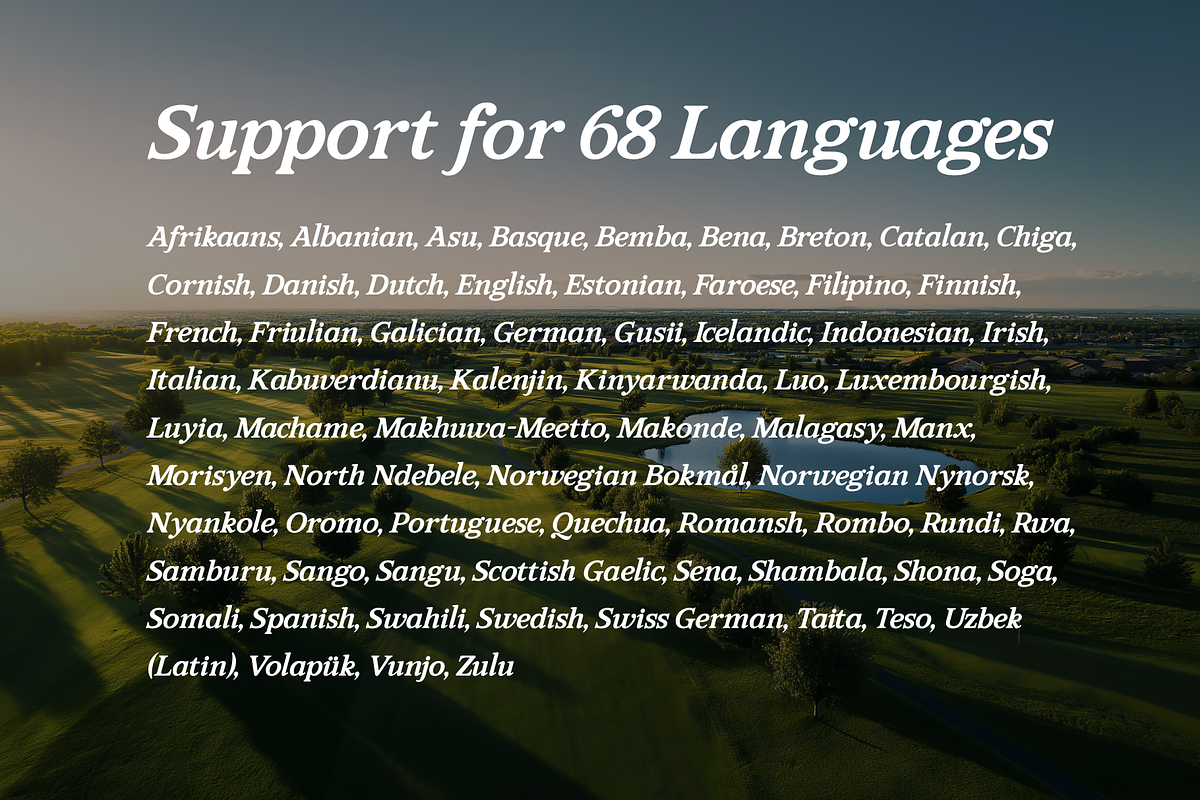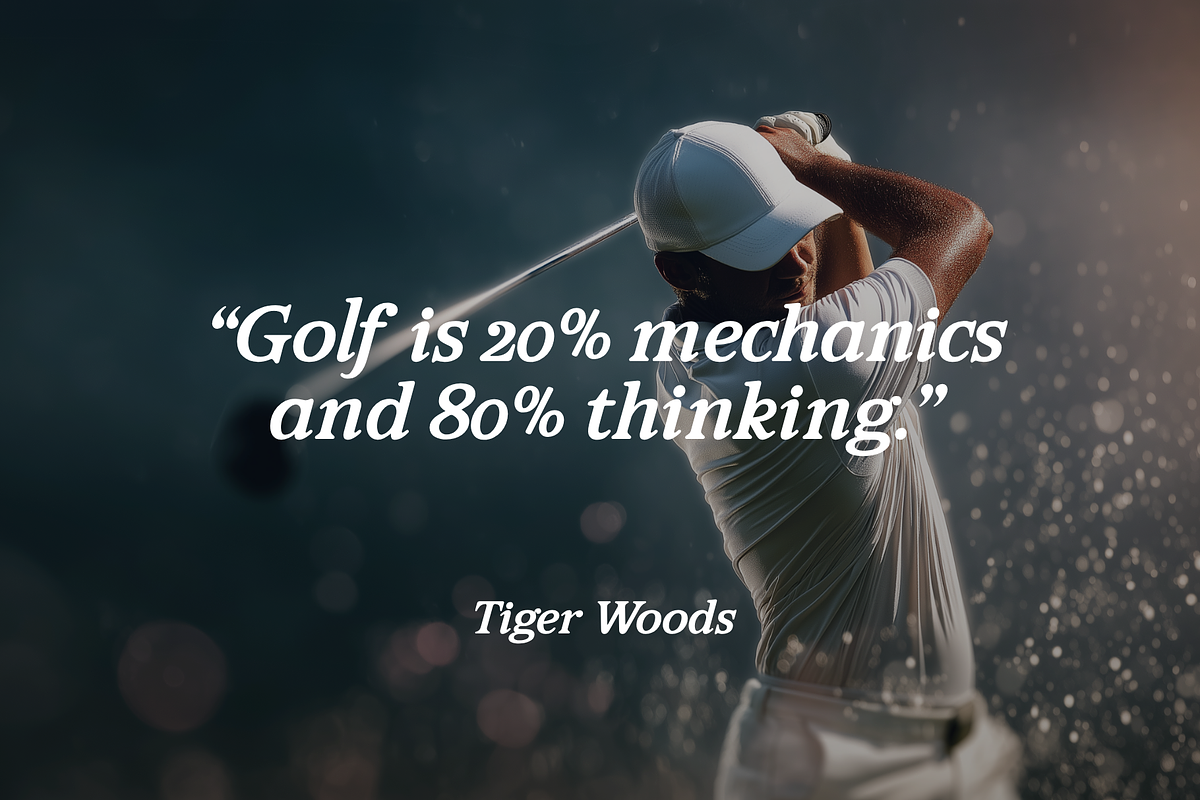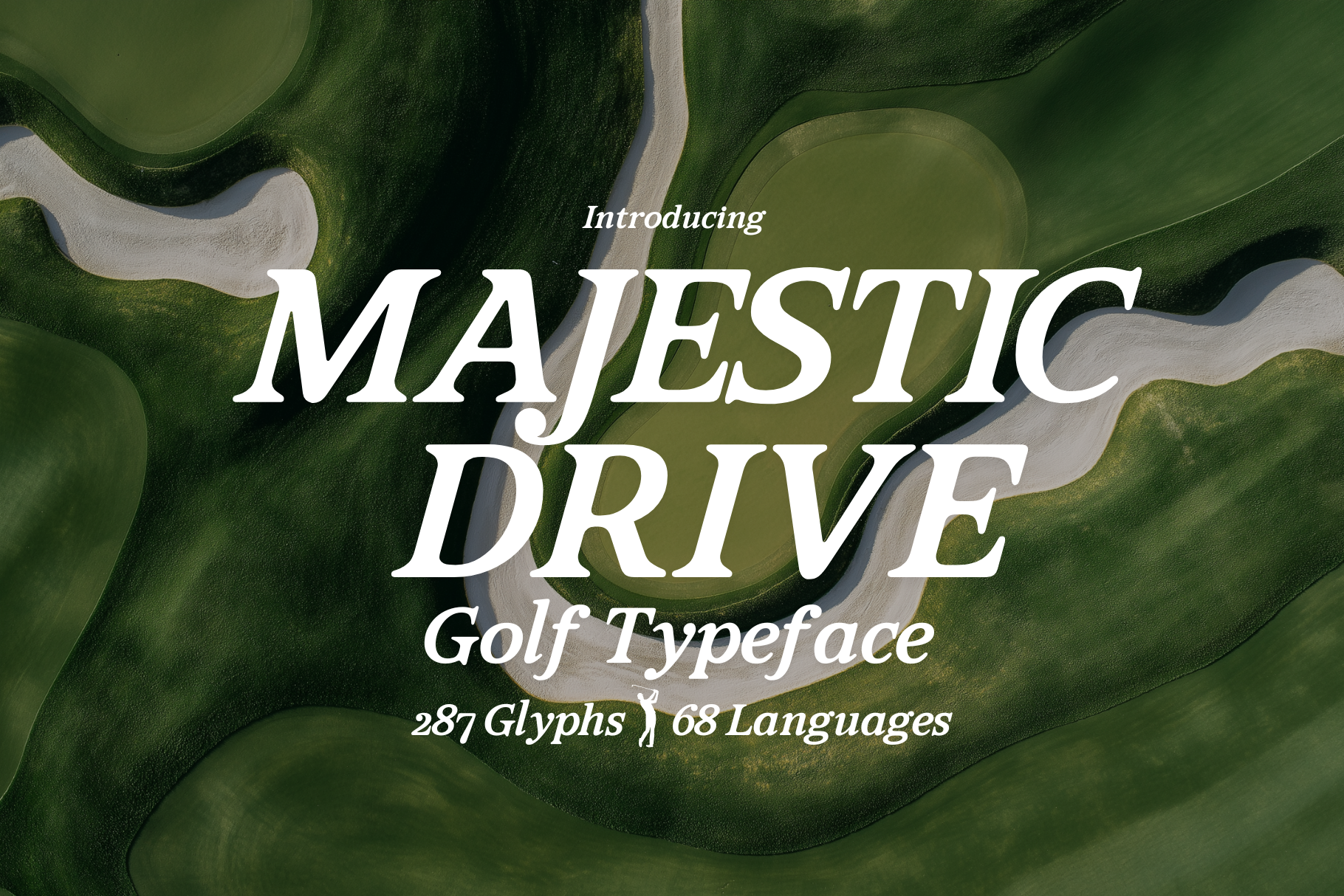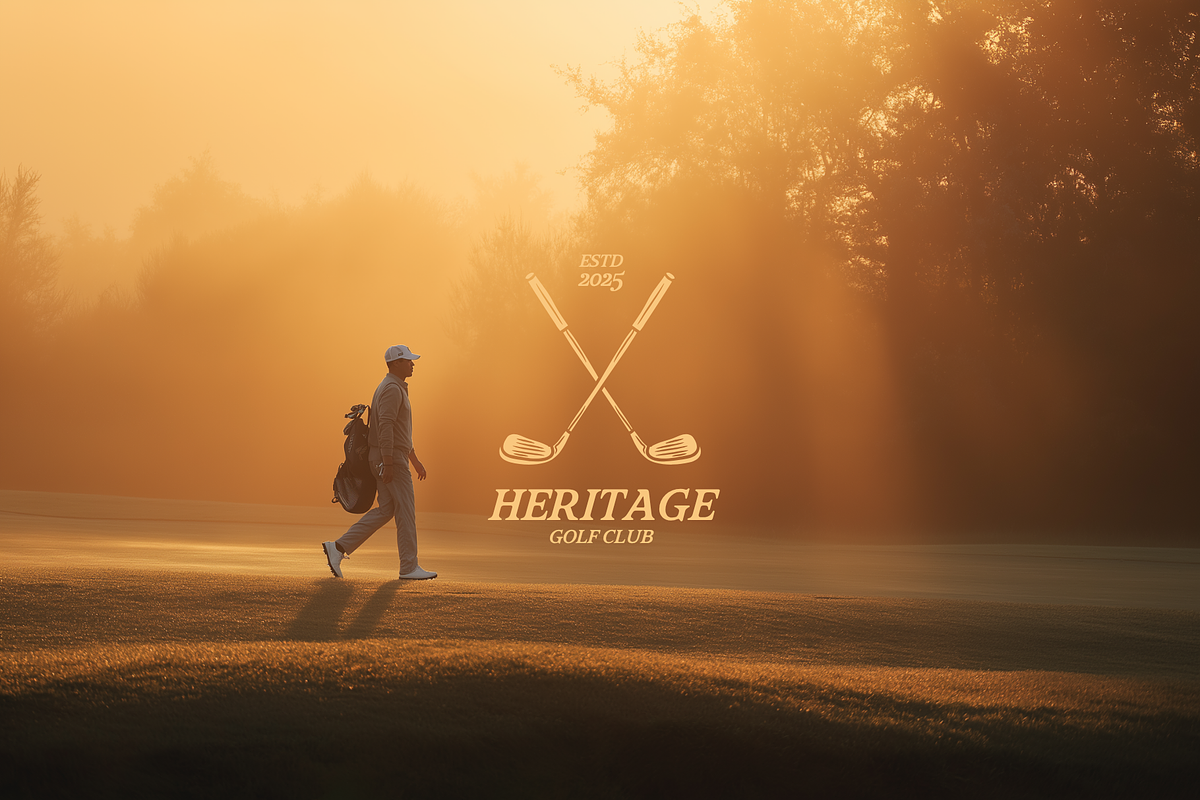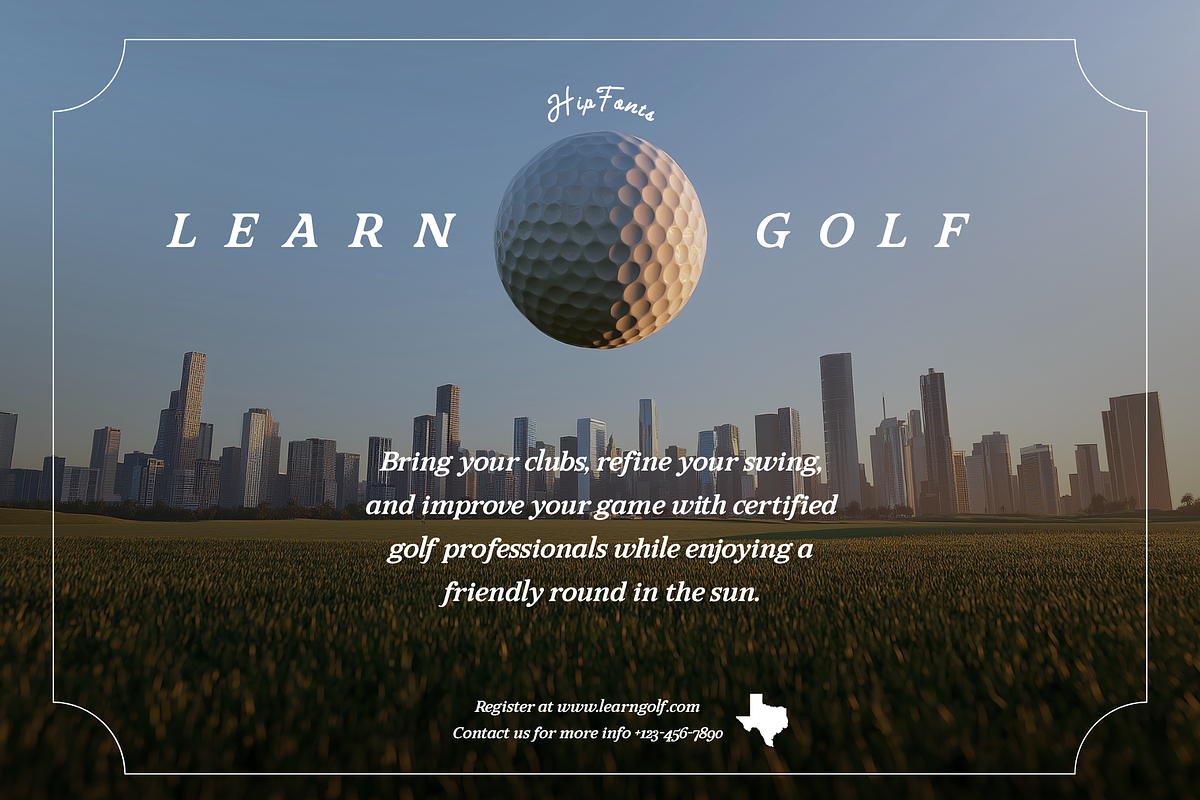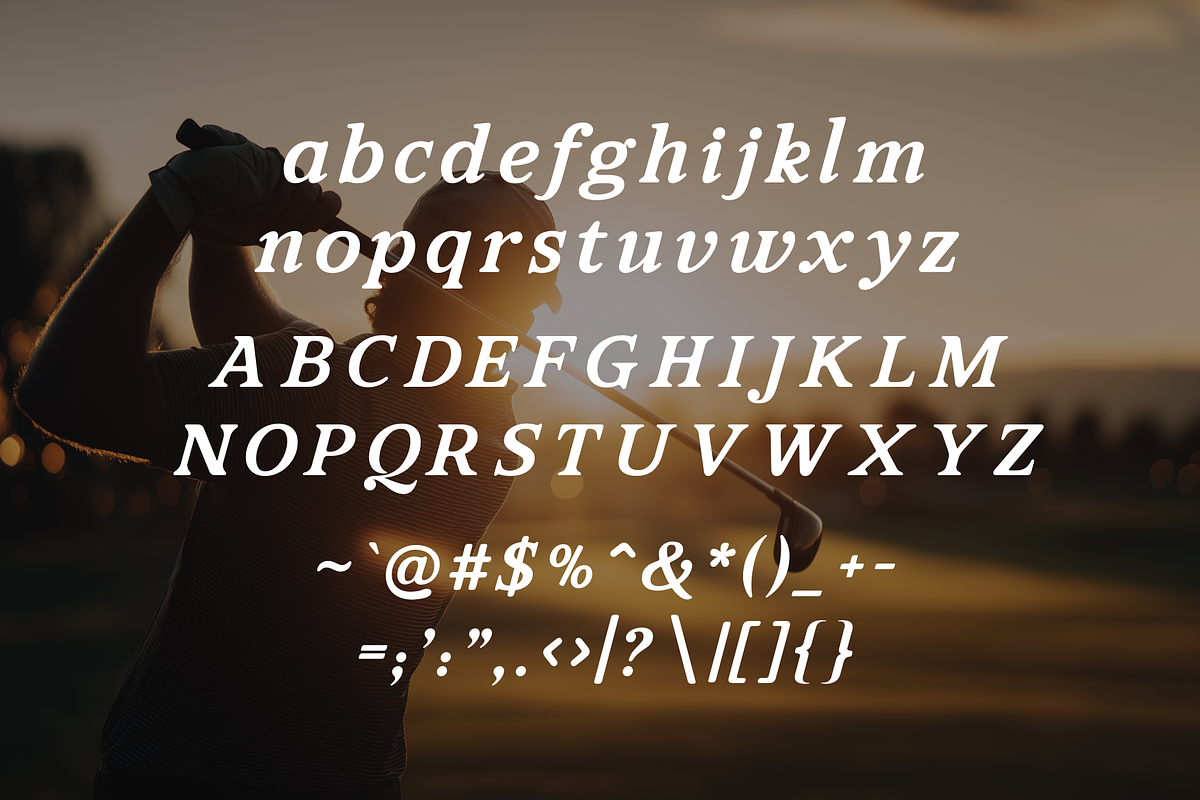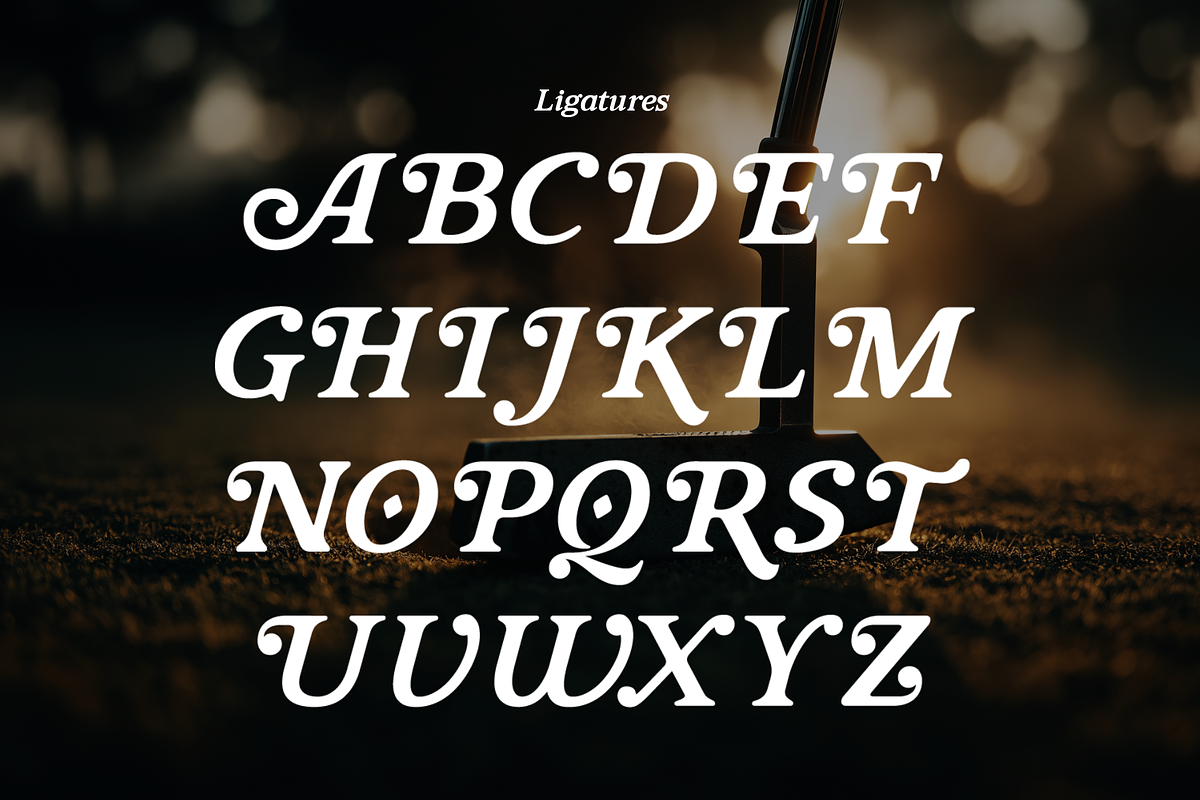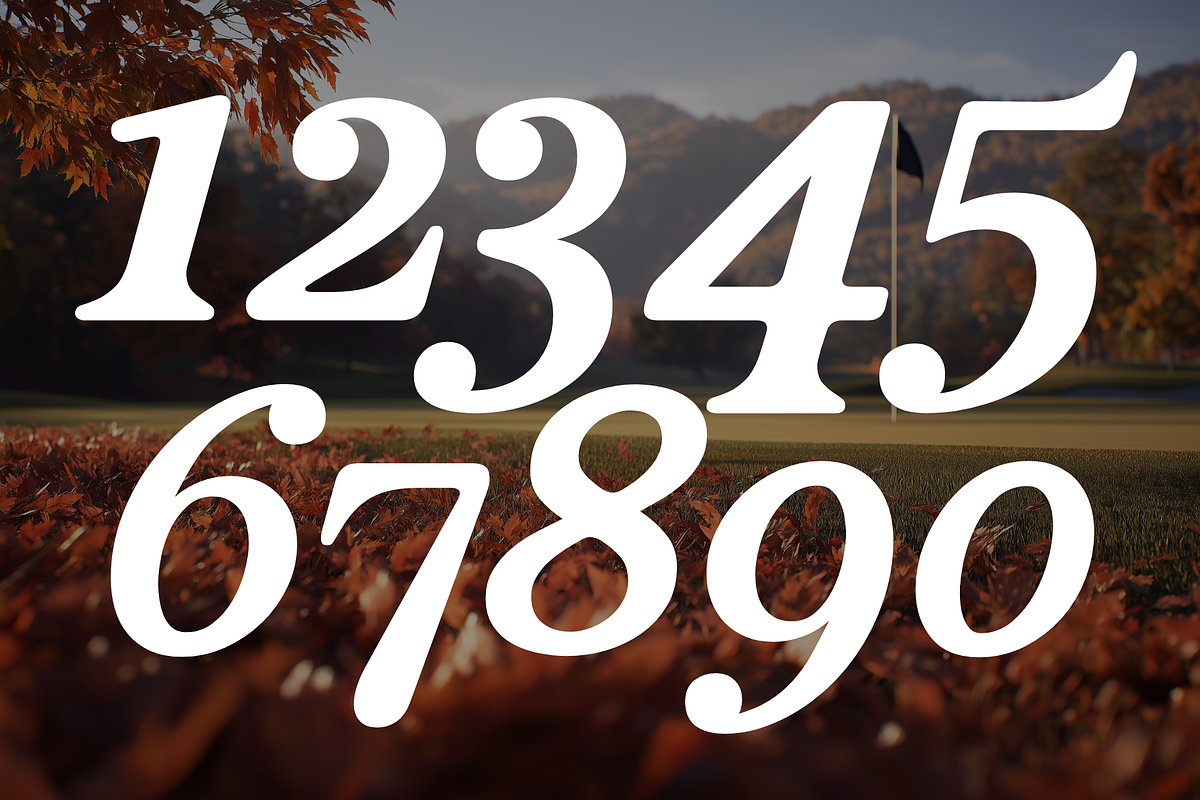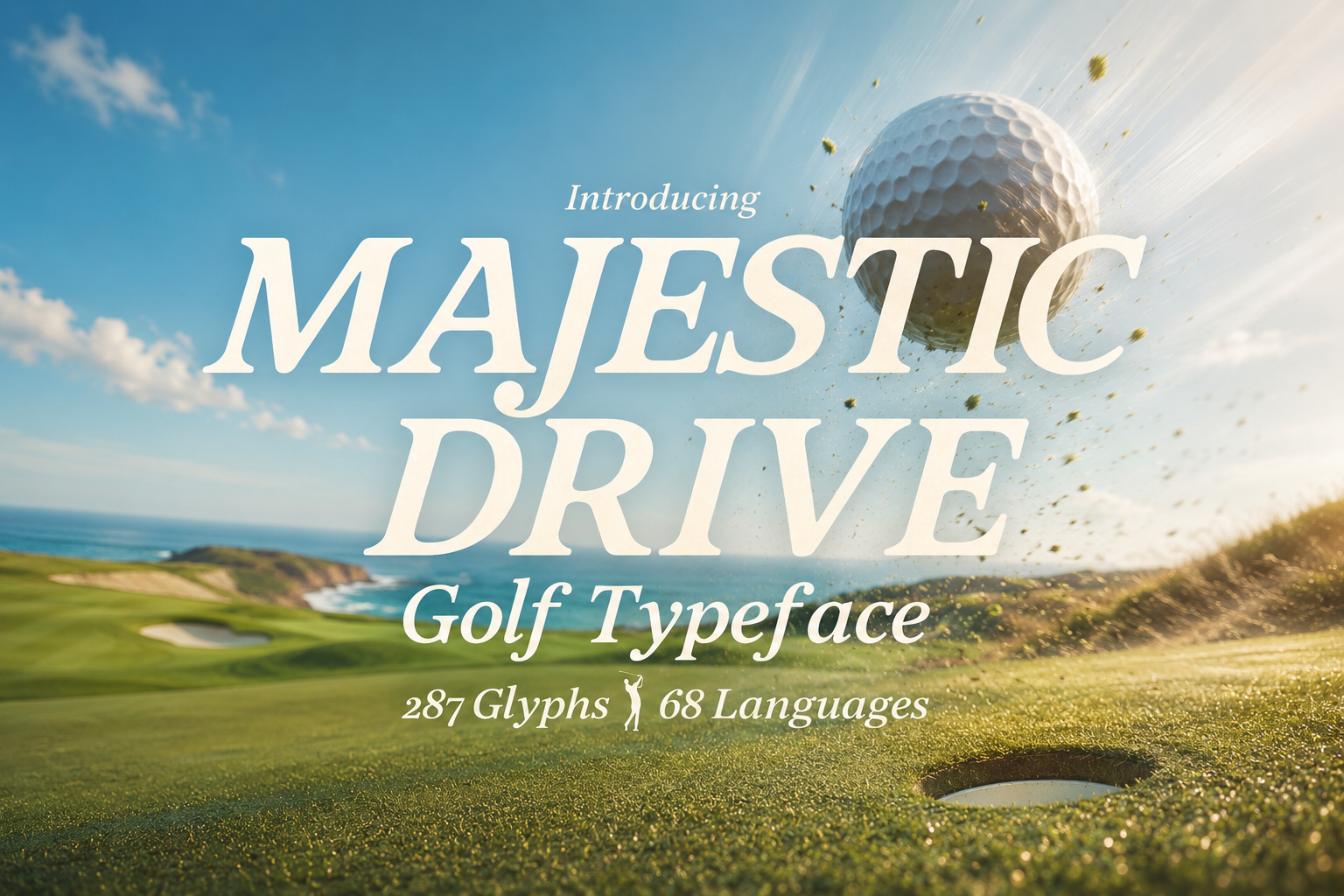
Majestic Drive - Golf Typeface
Step onto the green with style and sophistication with Majestic Drive, an exquisitely crafted script typeface designed for golf enthusiasts, brands, and designers who demand elegance. With its flowing, refined lines and timeless charm, Majestic Drive evokes the prestige and class of the game while remaining versatile for modern use.
Perfect for logos, branding, promotional materials, apparel, and advertising, this typeface transforms every word into a statement of sophistication. Its graceful curves and personal, hand-crafted feel make it ideal for creating wordmarks, signage, and marketing designs that stand out with authority and elegance.
Whether you’re designing for a golf tournament, club branding, or lifestyle products, Majestic Drive ensures every project exudes class, confidence, and unforgettable style. Elevate your designs with a font that’s as legendary as the game itself.